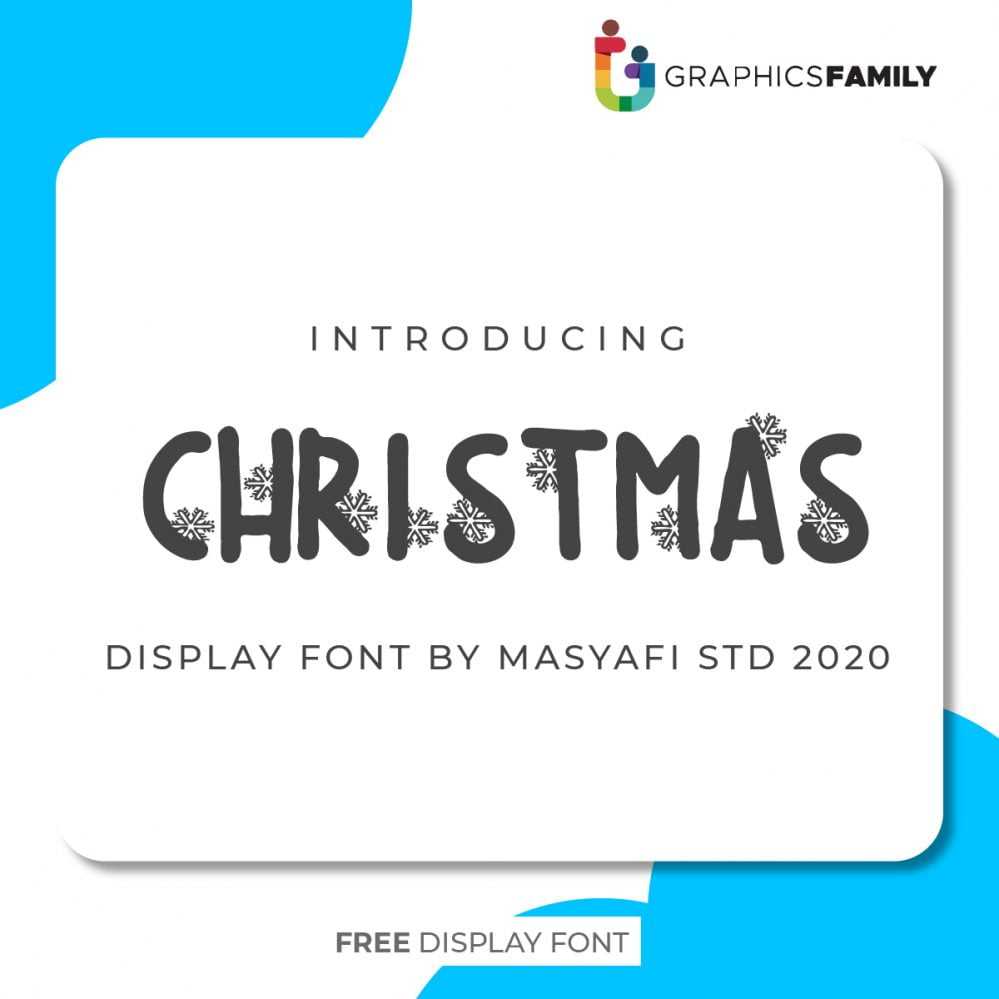
Christmas Font Christmas is a fun and festive display font. It is suitable for any winter and holiday branding, product packaging, invitation, quote, t-shirt, label, poster, logo that you wish to develop. COMPATIBILITY Windows Apple/Mac Linux Easily convert to webfont Cricut Silhouette Other cutting machines